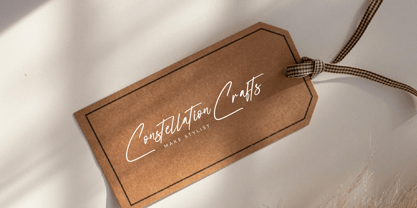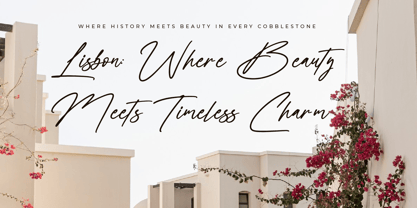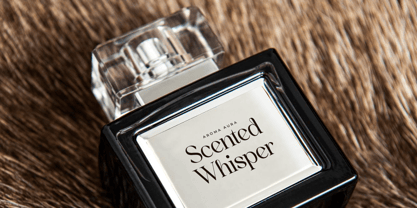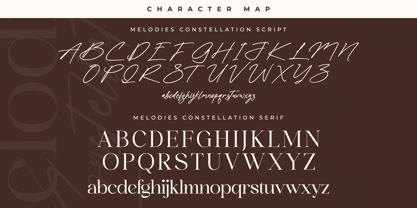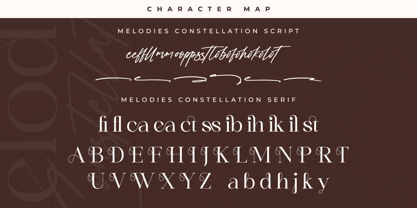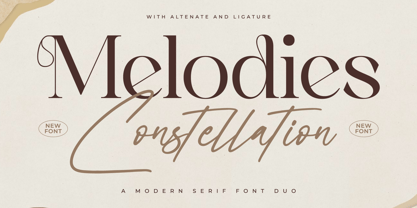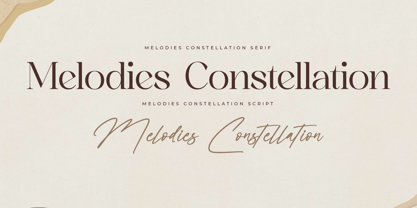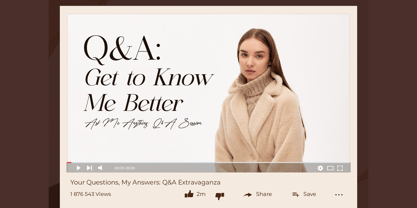
Melodies Constellation
The Melodies Constellation Font Family was designed by Heru Utama Putra and published by Letterena Studios. Melodies Constellation contains 1 styles. More about this family
Proudly present Melodies Constellation Font Duo.
A serif and script typeface that has its own unique style & modern look.
This typeface is perfect for an elegant & luxury logo, book or movie title design, fashion brand, magazine, clothes, lettering, quotes, and so much more.